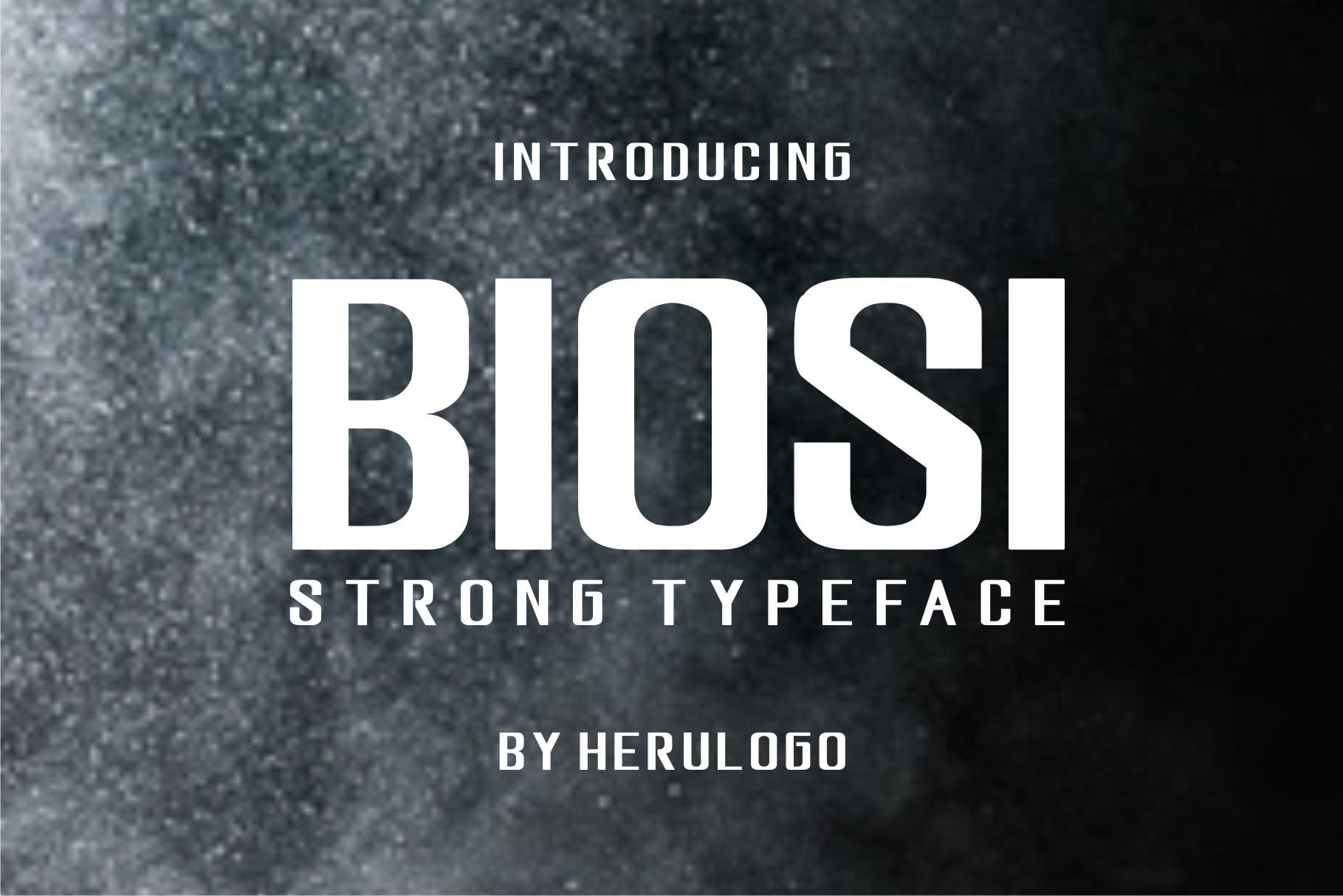
BIOSI is a strong typeface for branding, logotypes, headlines, big text & display usage. BIOSI is best for creating modern logos, promotional content and marketing graphics that can really grab attention from your visitors. Please see the examples shown above to get an idea about the capability of this typeface.